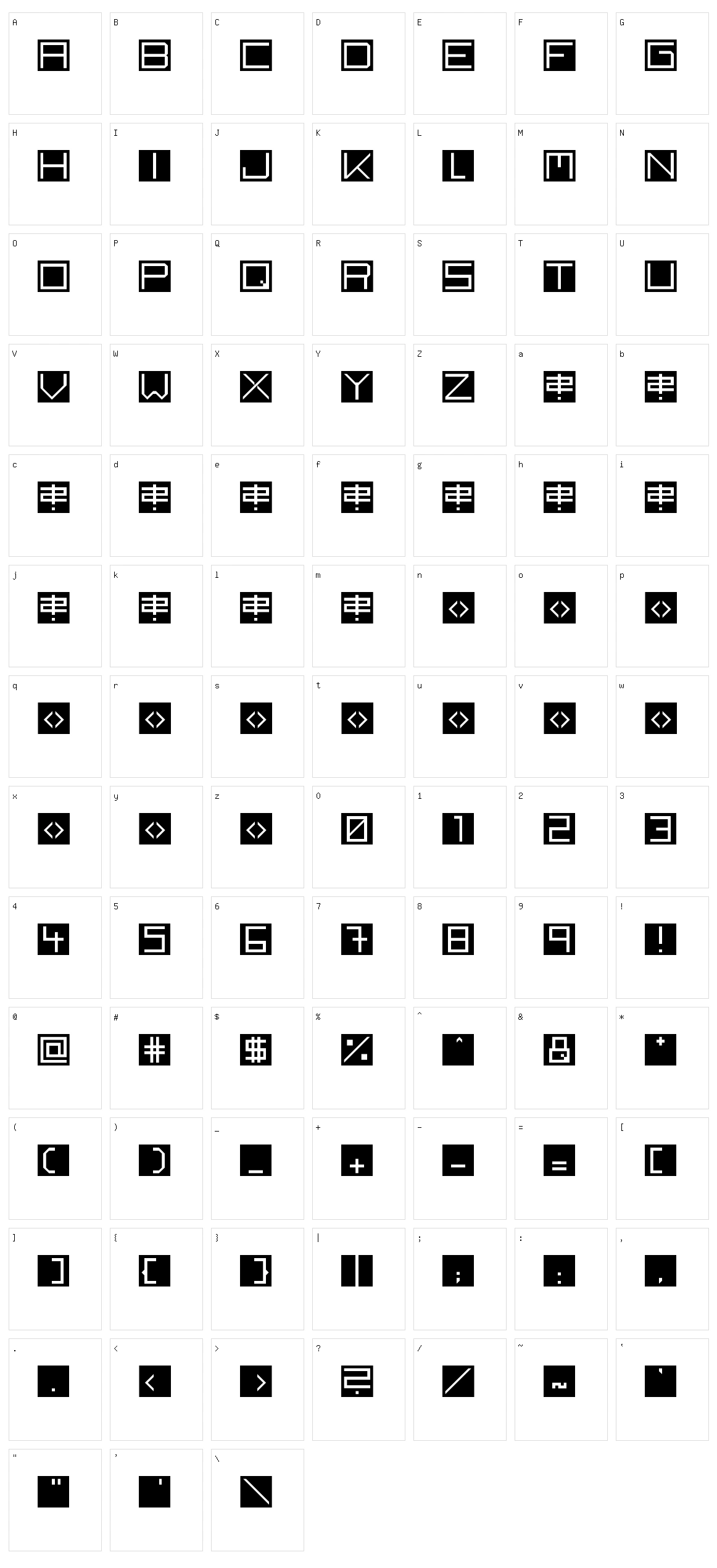
The free font Back to heavy coat fat ground is carefully designed by Manuel Viergutz | Typo Graphic Design, showcasing a thoughtful balance of creativity and usability and falls under the Square font style. When you download the ZIP file, it contains only 59.04 KB of font files, making it lightweight and quick to download. Please review the license details below to understand permitted usage and distribution rights. If license information is not available, we recommend using this font for personal projects only or contacting the author directly for commercial usage permissions.